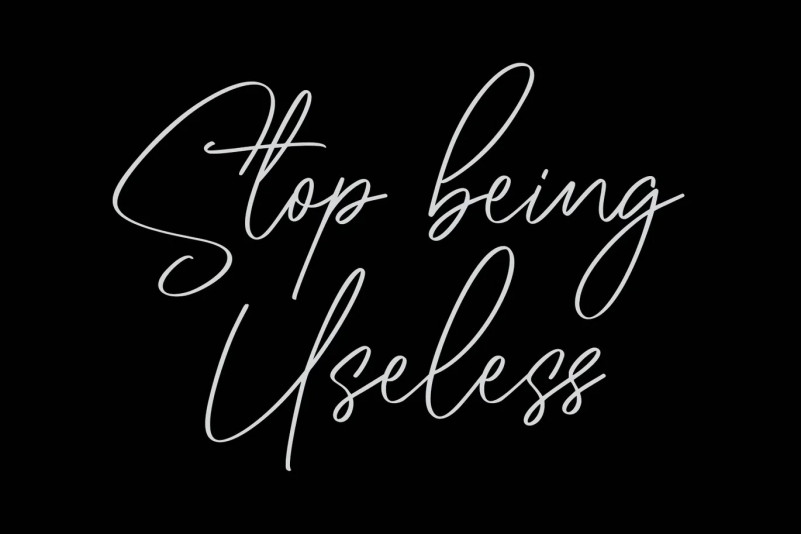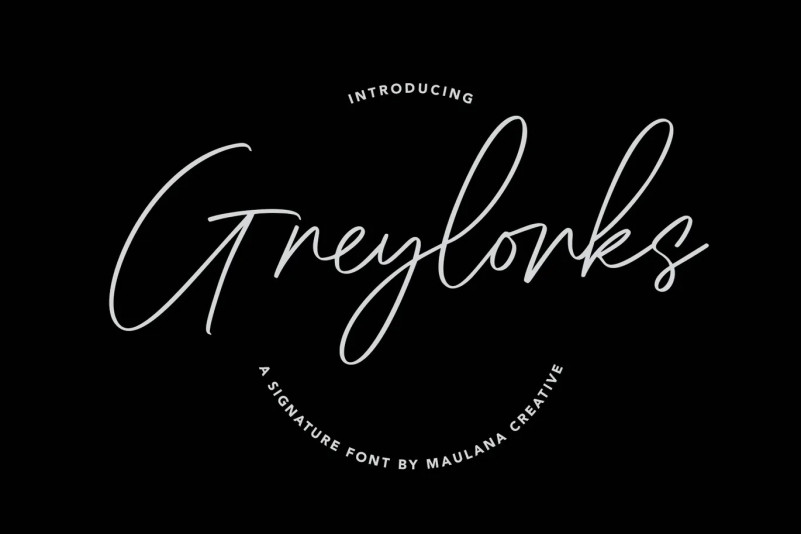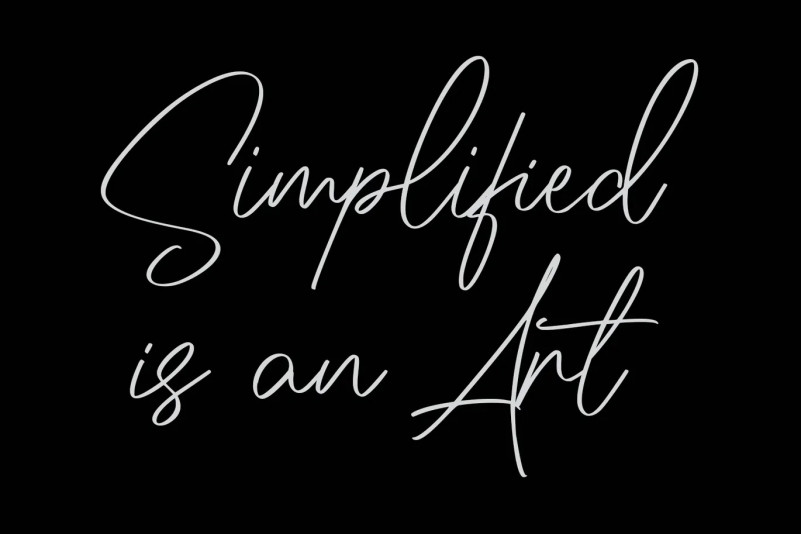
Greylorks Font
Greylorks is a modern signaturescript font, With a high contrast quirk stroke clean and fancy characters. It has Opentype features of ligatures, makes it a perfect choice for branding and digital designs. Use this font for logos, social media, websites, blogs, instagram, social media, business cards, branding, and more! Greylorks font support multilingual more than 100+ language. and good pair for your secondary text font with sans or serif. Make a stunning work with Greylorks signature script font.